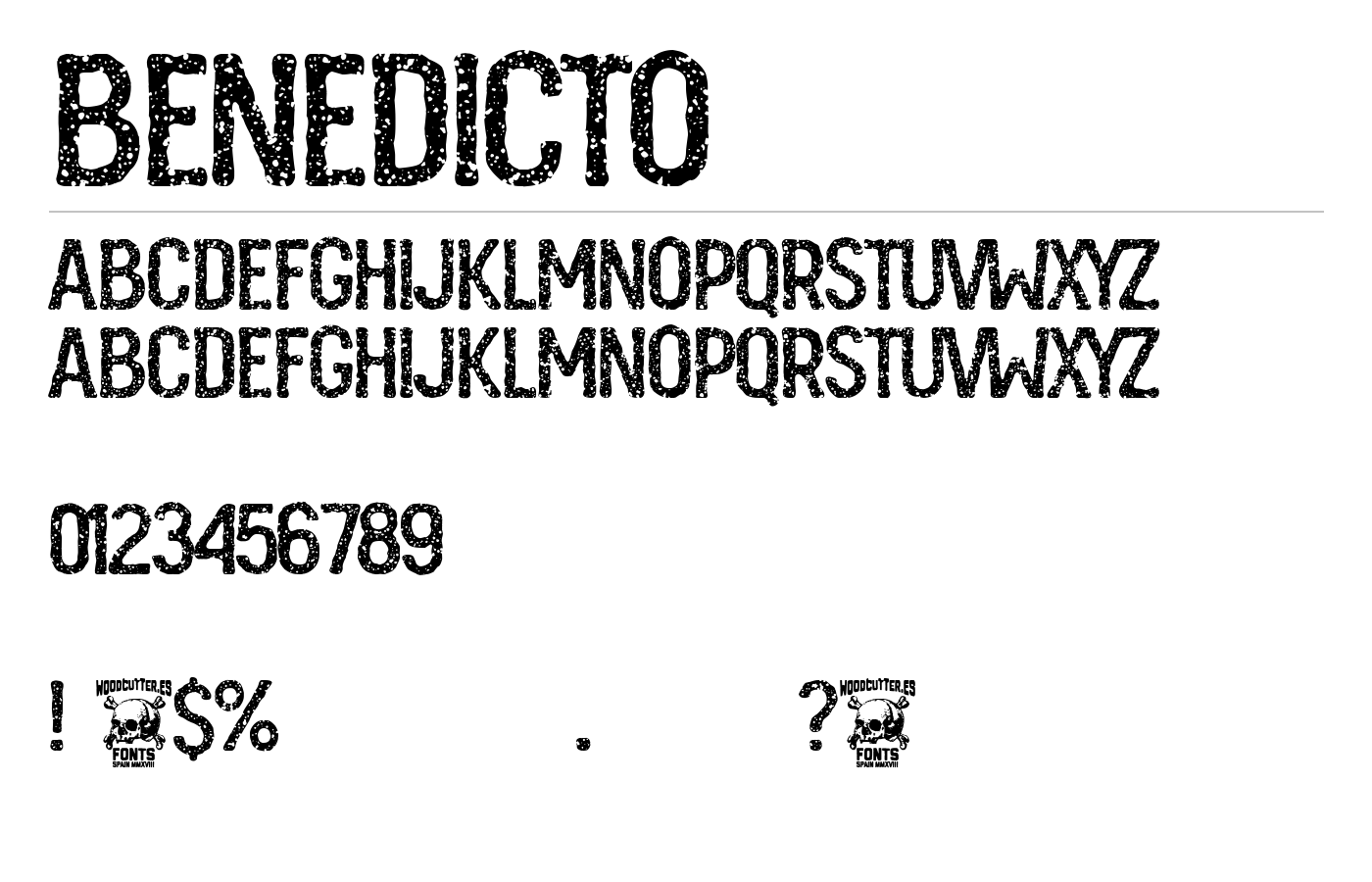
Benedicto is a bold, condensed sans serif font with a distressed texture that gives it a rugged, vintage feel. Its tall, narrow letterforms combined with rough, speckled edges make it ideal for impactful headlines, posters, and branding that aims to convey a gritty, handcrafted personality. This font works well for designs seeking a strong, attention-grabbing style with a unique, worn-in character.
Benedicto Font
About Benedicto Font
| Font family | Benedicto Font |
| Designer | Jordi Manero Pascual |